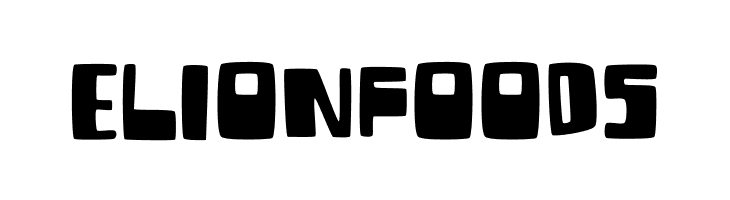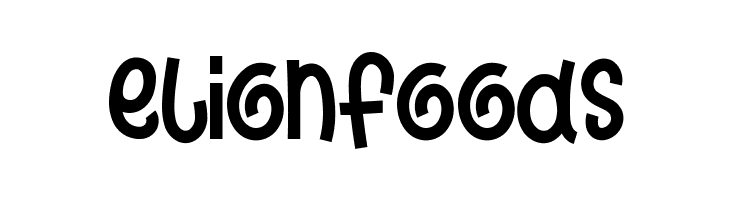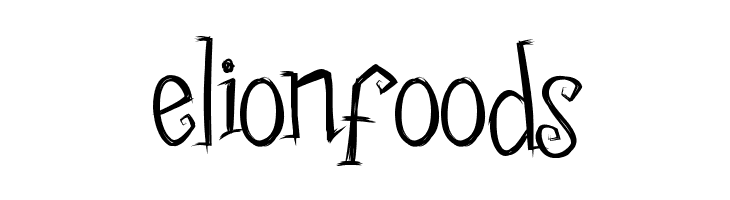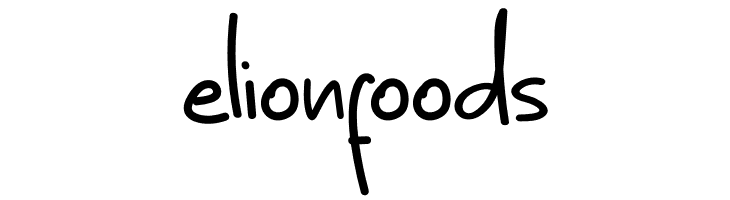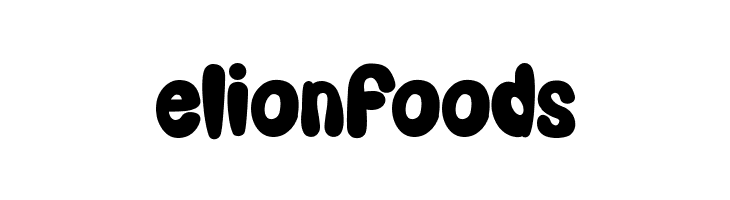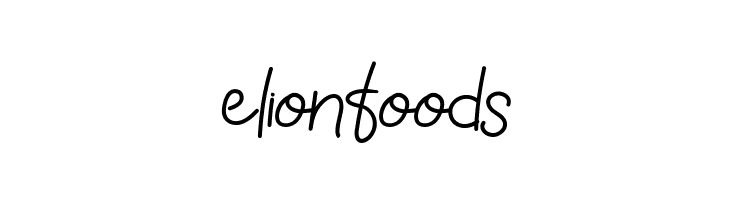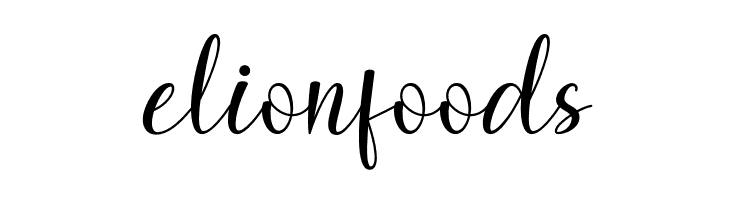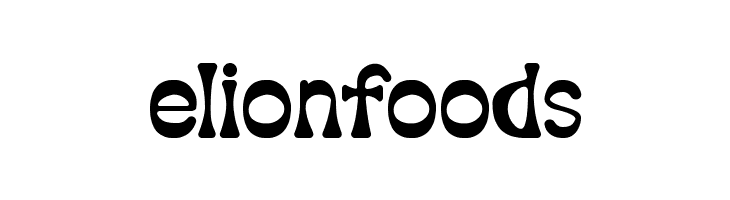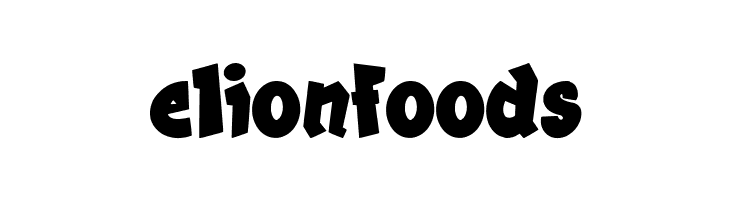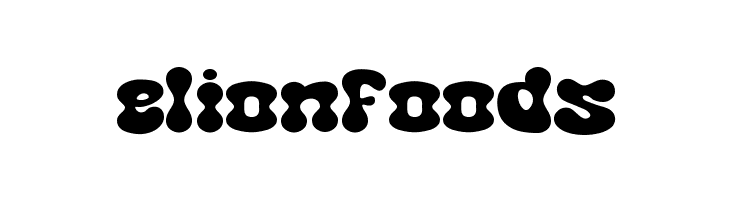
A bold, playful font with retro, rounded letterforms.
Bold, rounded, playful sans-serif with a hand-drawn style.
A playful, bold font with rounded, bubbly characters and a whimsical style.
A playful, textured font with a bold, whimsical design.
A bold, playful font with exaggerated, irregular shapes and dynamic energy.
A playful and whimsical font with quirky, irregular letterforms.
A bold, playful font with wavy, hand-drawn letterforms.
A playful, hand-drawn font with a whimsical and casual style.
A bold, playful font with irregular shapes and exaggerated curves.
A playful and whimsical font with curvy, energetic characters.
A bold, geometric font with a futuristic and industrial style.
A bold, geometric font with a futuristic and mechanical style.
A bold, geometric font with a striking outline and futuristic style.
A bold, geometric font with a striking outline and modern appeal.
A playful, bold font with rounded, bubbly characters perfect for informal designs.
A bold, playful font with rounded, cartoonish characters.
A whimsical, hand-drawn font with a magical, gothic flair.
A playful, bold font with rounded, bubbly characters perfect for fun and approachable designs.
A playful, hand-drawn font with bold, rounded strokes and a whimsical style.
A playful, bold font with rounded characters and wide spacing.
A futuristic and geometric font with bold, angular letterforms.
A casual, fluid handwritten script with smooth, connected letters.
A bold, blackletter-style font with sharp, angular strokes and a gothic flair.
A delicate, handwritten script font with elegant, flowing lines.
A modern, elegant script font with flowing, cursive characters and medium contrast.
A classic serif font with elegant proportions and medium contrast, ideal for formal and versatile applications.
A playful and elegant script font with a handwritten style.
( Fonts by Clarissa Adela Pranama - Personal-use only. For commercial use please contact owner. )
A bold, geometric font with sharp angles and unique cutouts, perfect for modern designs.
( Fonts by twinletter - Rozikan - Personal-use only. For commercial use please contact owner. )
A bold, modern font with geometric shapes and clean lines, perfect for striking headlines.
( Fonts by twinletter - Rozikan - Personal-use only. For commercial use please contact owner. )
A bold, modern font with clean, geometric lines and a contemporary feel.
( Fonts by twinletter - Rozikan - Personal-use only. For commercial use please contact owner. )
A clean, modern font with uniform stroke width and minimalist design.
A bold, flowing script font with high contrast and elegant curves.
A bold, playful font with a 3D extruded effect, ideal for eye-catching designs.